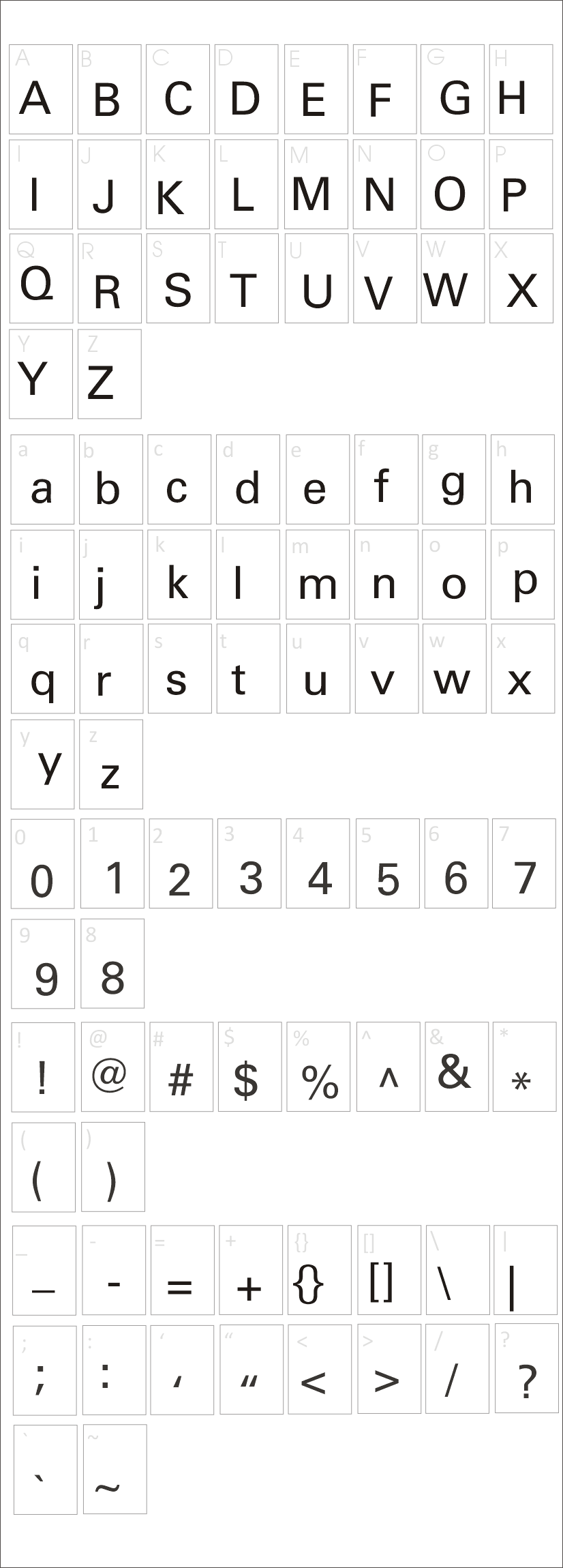
| Font Name | Univers Font Family |
| Font Designer | Adrian Frutiger |
| Category | Sans-serif, Neo-Grotesque |
The Univers Font Family is a landmark neo-grotesque sans-serif typeface designed by the legendary Swiss typographer Adrian Frutiger. It was released in 1957 by the Deberny & Peignot foundry. Frutiger’s goal was to create a large, unified font family where all the variations in weight and width were designed to work together in perfect harmony. This was a revolutionary idea at the time, moving past the common practice of creating unrelated bold or condensed versions of a single font.
At its core, Univers is celebrated for its clean, rational, and highly legible design. The letterforms are clear and objective, avoiding any distracting embellishments. This gives the font a neutral yet authoritative tone, making it suitable for a vast array of applications. Unlike its famous contemporary, Helvetica, which has a slightly more compact appearance, Univers features more open spacing and optically uniform strokes, which many designers argue improve its readability, especially in dense blocks of text and on signs viewed from a distance.
Key Features of Univers Font Family:
- Geometric Design: Univers’ letterforms are based on geometric shapes creating a strong and consistent visual impact.
- Modern and Versatile: The font’s contemporary style and versatility make it suitable for various projects, from branding and advertising to editorial design and web development.
- Exceptional Legibility: The font’s clear and balanced letterforms ensure easy reading on various screen sizes and devices.
- Wide Character Support: Univers supports a broad range of languages and characters making it a global-friendly choice.
- Multiple Weight Options: The font family includes various weight options (e.g., Regular, Bold, Italic), allowing you to find the perfect style for your needs.
Uses for Univers Font Family:
- Branding: Use Univers for logos, business cards, and other branding materials to create a modern and professional identity.
- Signage: Univers is often used for signage and wayfinding systems due to its excellent legibility and clear design.
- Print Design: Incorporate Univers into brochures, flyers, and other print materials to add a touch of modernity and sophistication.
- Web Design: Use Univers for headlines, body text, and other typographic elements to enhance your website’s visual appeal.
- Corporate Presentations: Univers’ clean and modern design can help make your presentations more impactful.